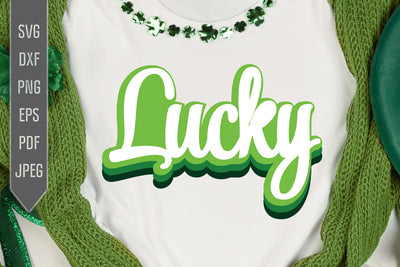
Lucky Svg. Lucky in 3d retro old school groovy font. St. Patrick's Day Svg. Lucky Svg. Irish Svg. Clover Svg. St Patrick's Dxf, eps, png, jpg pdf
Lucky Svg. Lucky in retro old school groovy font. St. Patrick's Day Svg. Lucky Svg. Irish Svg. Clover Svg. St Patrick's Dxf, eps, png, jpg pdf